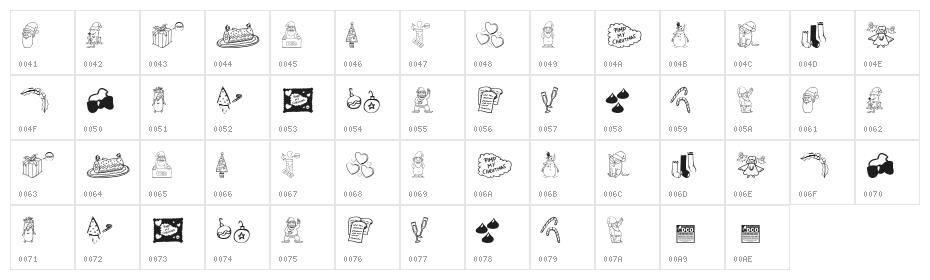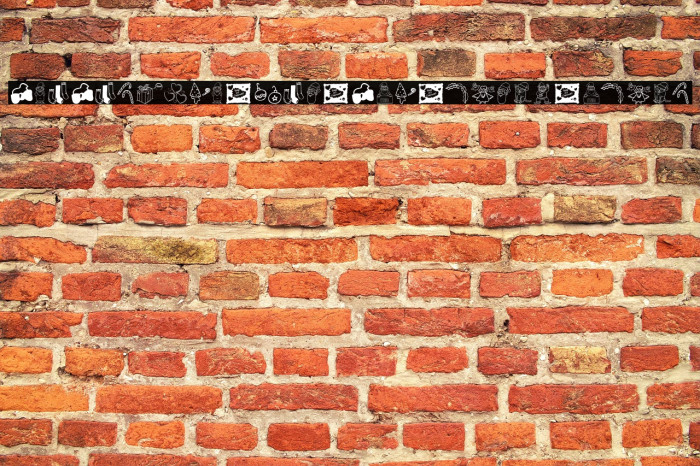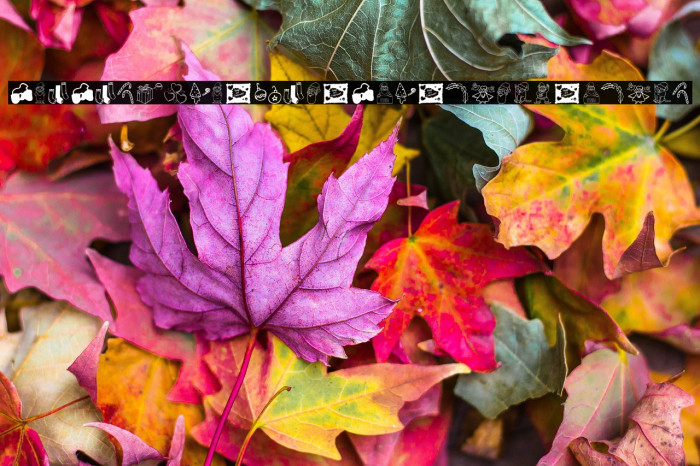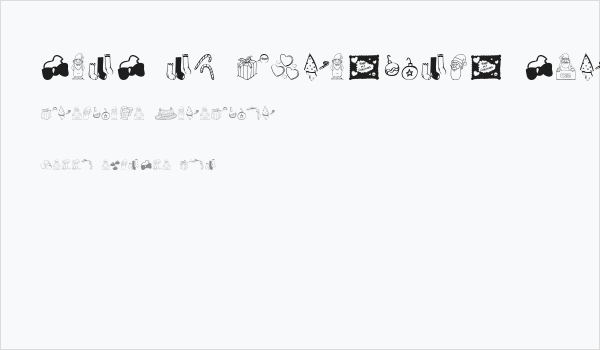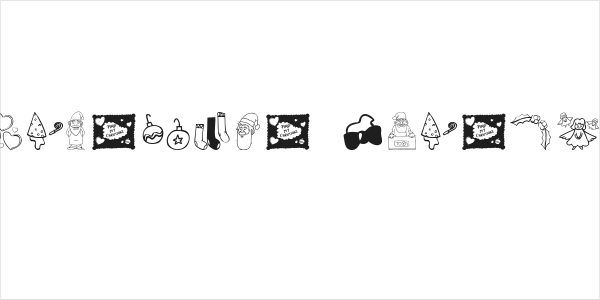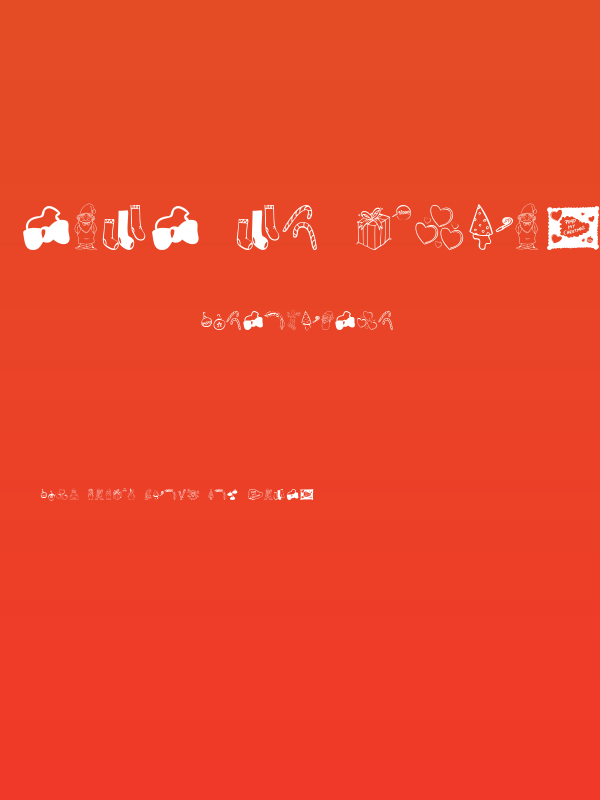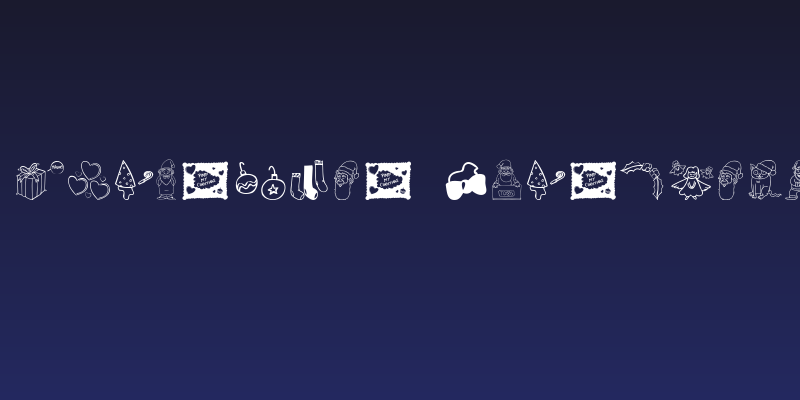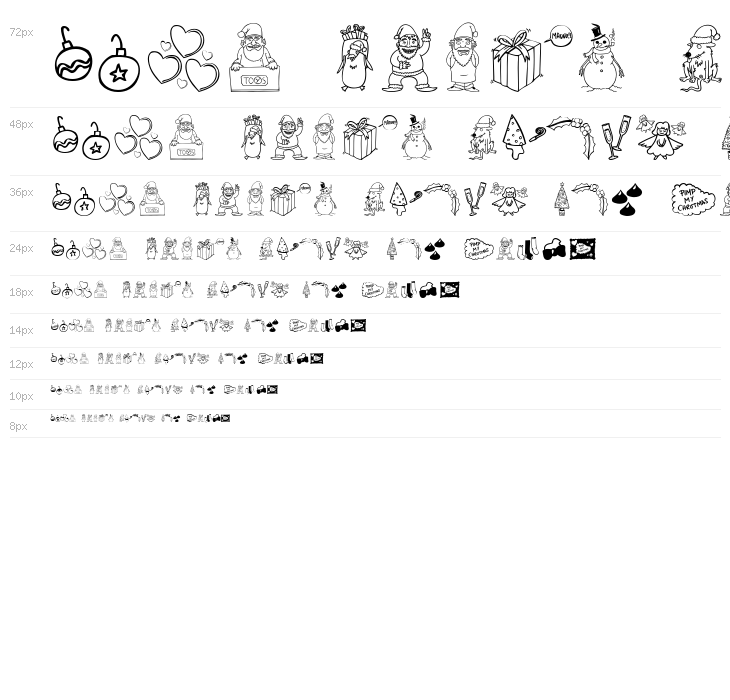
Pimp My Christmas_PersonalUseOnly Font
Pimp My Christmas_PersonalUseOnly Description
This is a decorative font featuring a whimsical collection of Christmas-themed illustrations. Each character is represented by a unique festive icon, such as Santa Claus, Christmas trees, gifts, snowmen, and other holiday symbols. The style is playful and cartoonish, capturing the joyful and celebratory spirit of the holiday season. The icons are detailed and varied, providing a wide range of visual elements that can be used to enhance holiday-themed projects. The font is ideal for creating eye-catching designs that require a touch of festive charm.
| Use Case | Logos, Headlines, Decorative elements |
| Proposed Projects | Ideal for holiday greeting cards, festive invitations, Christmas-themed posters, and seasonal social media graphics. |